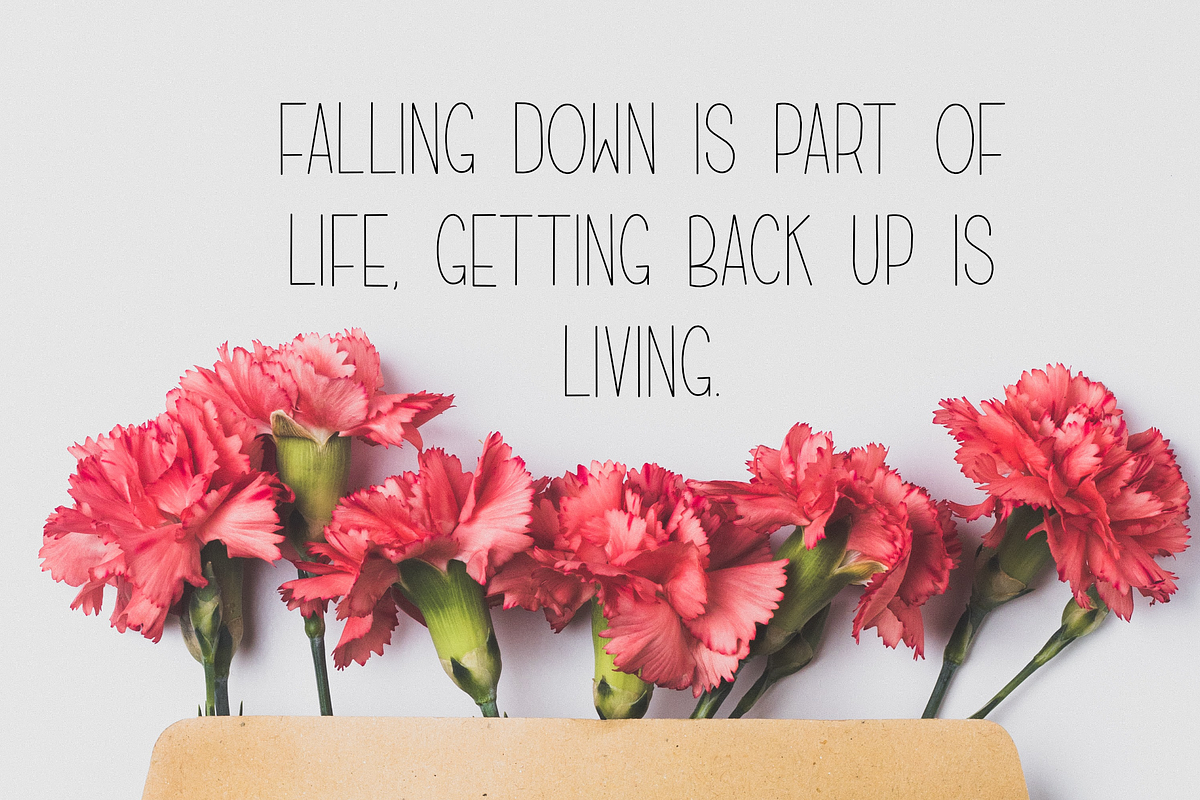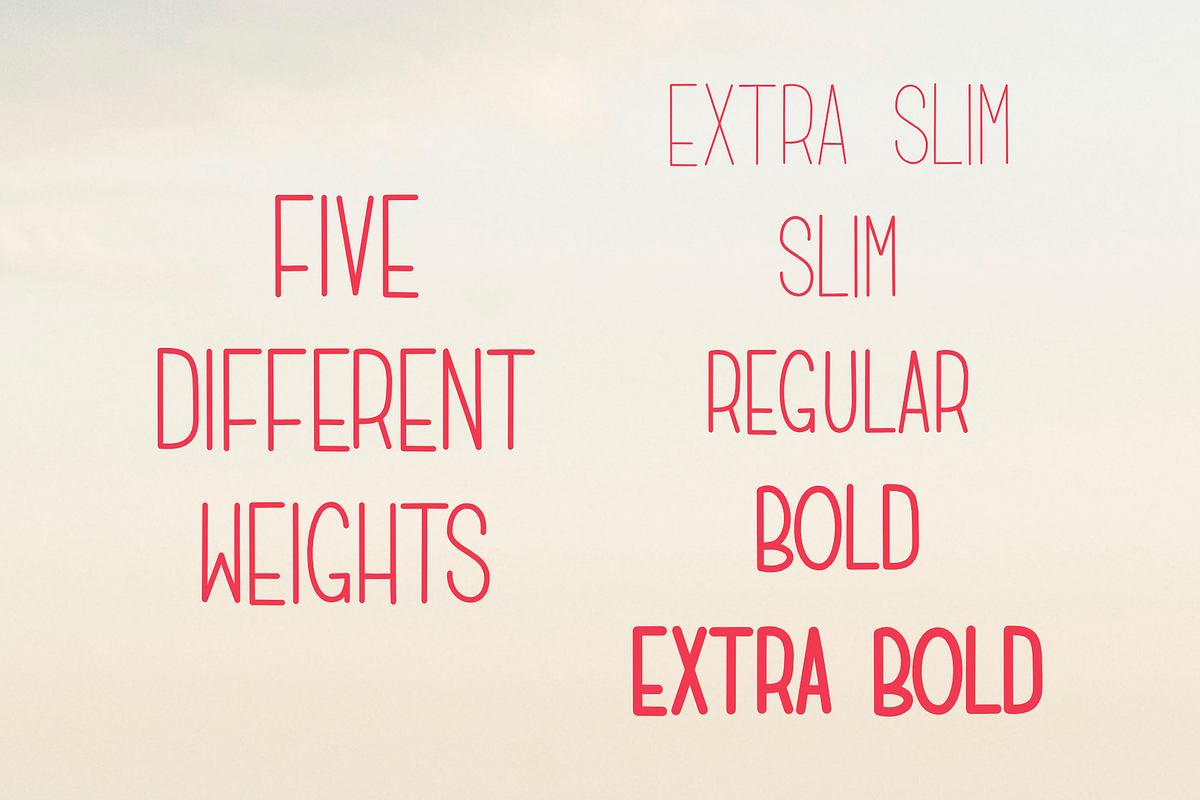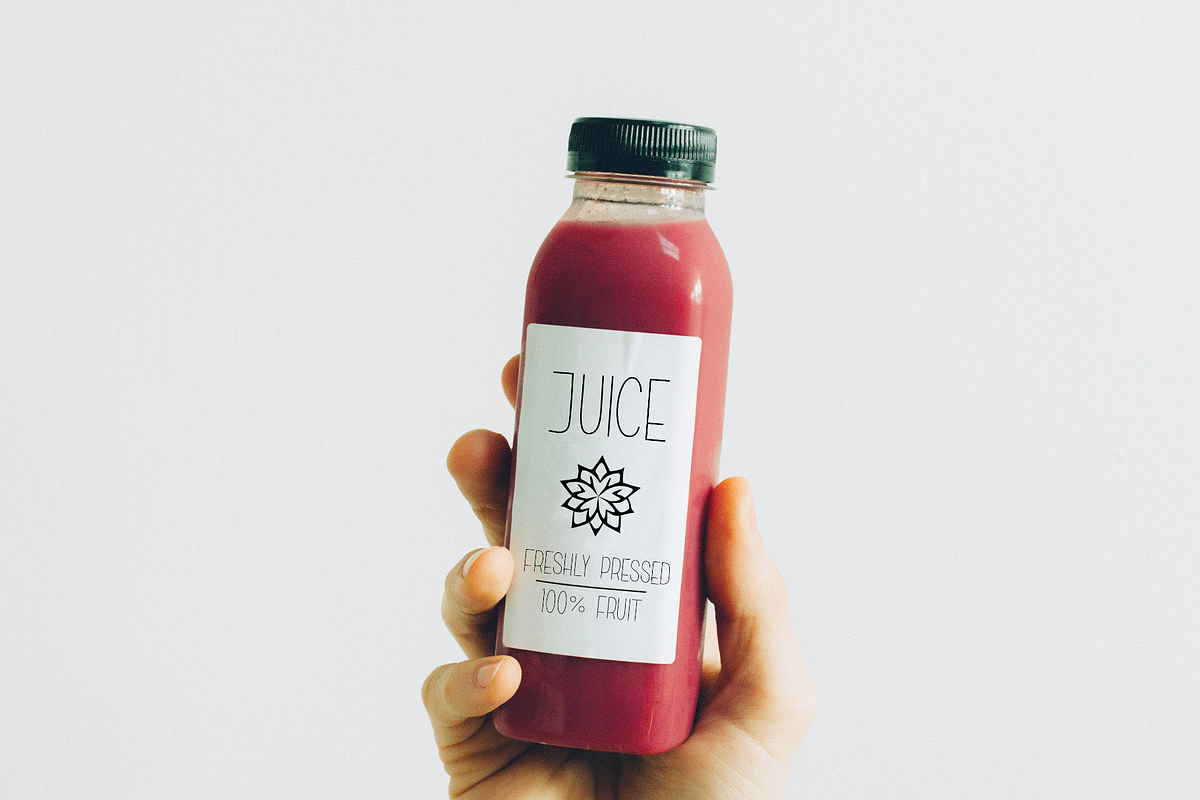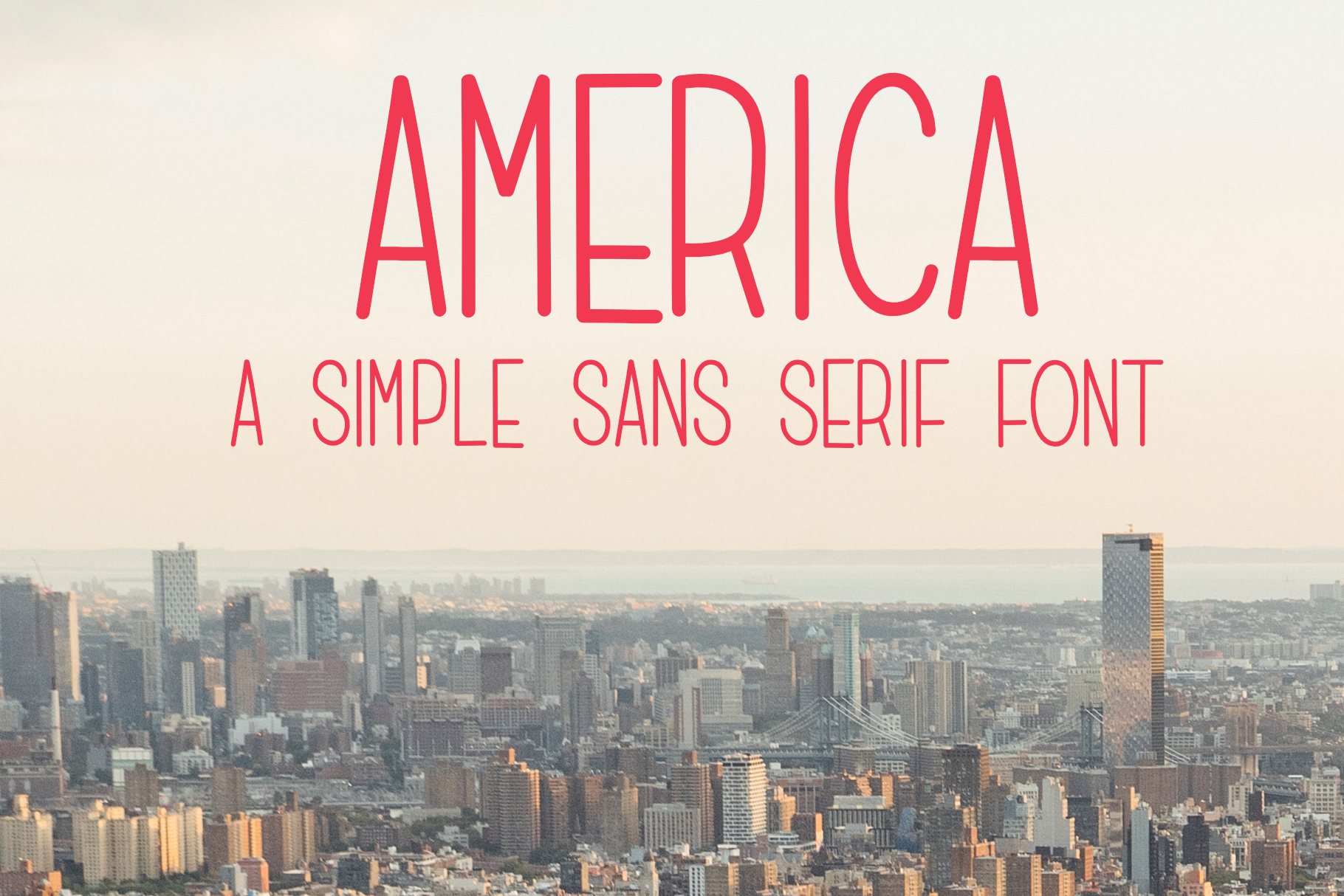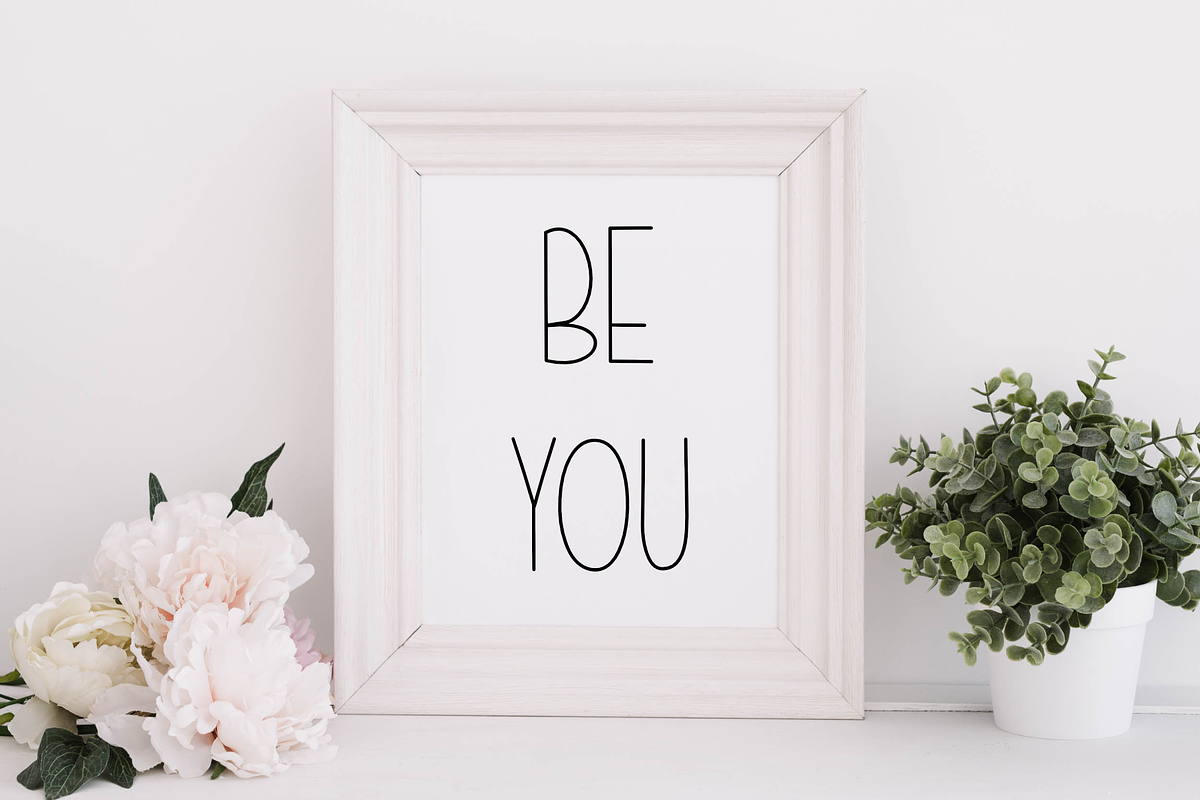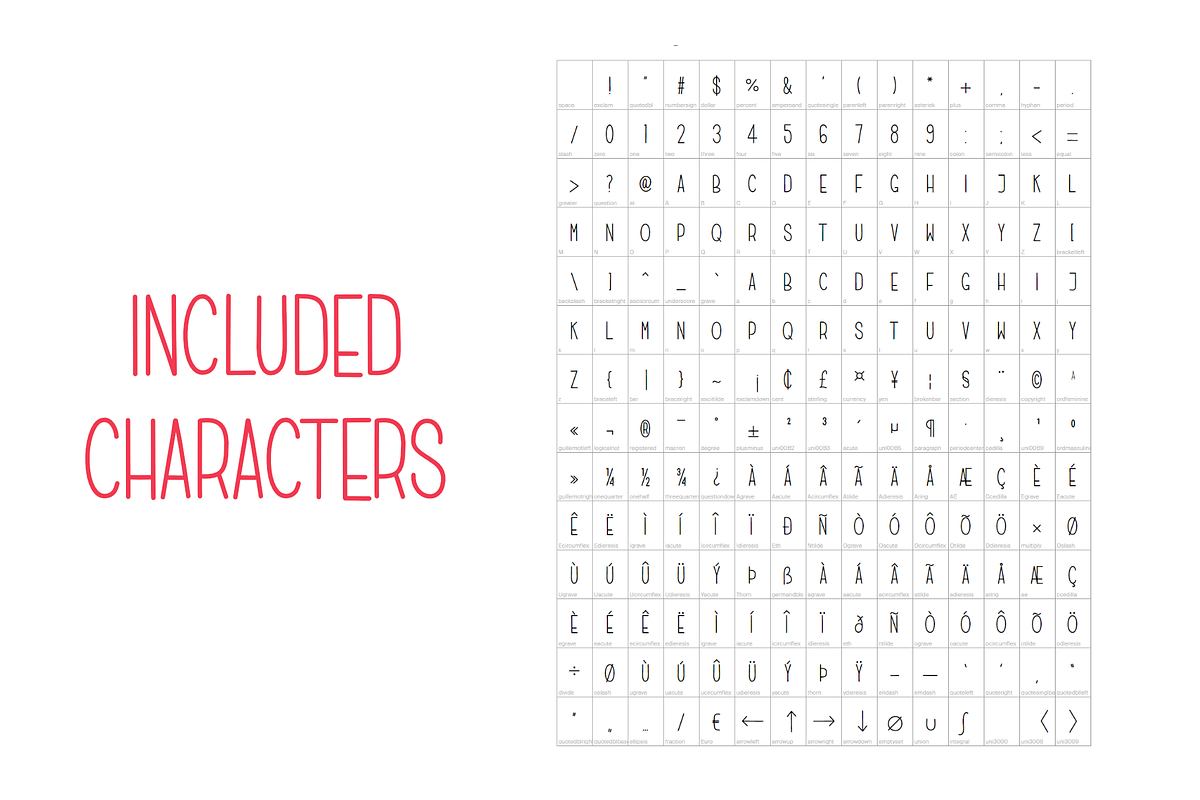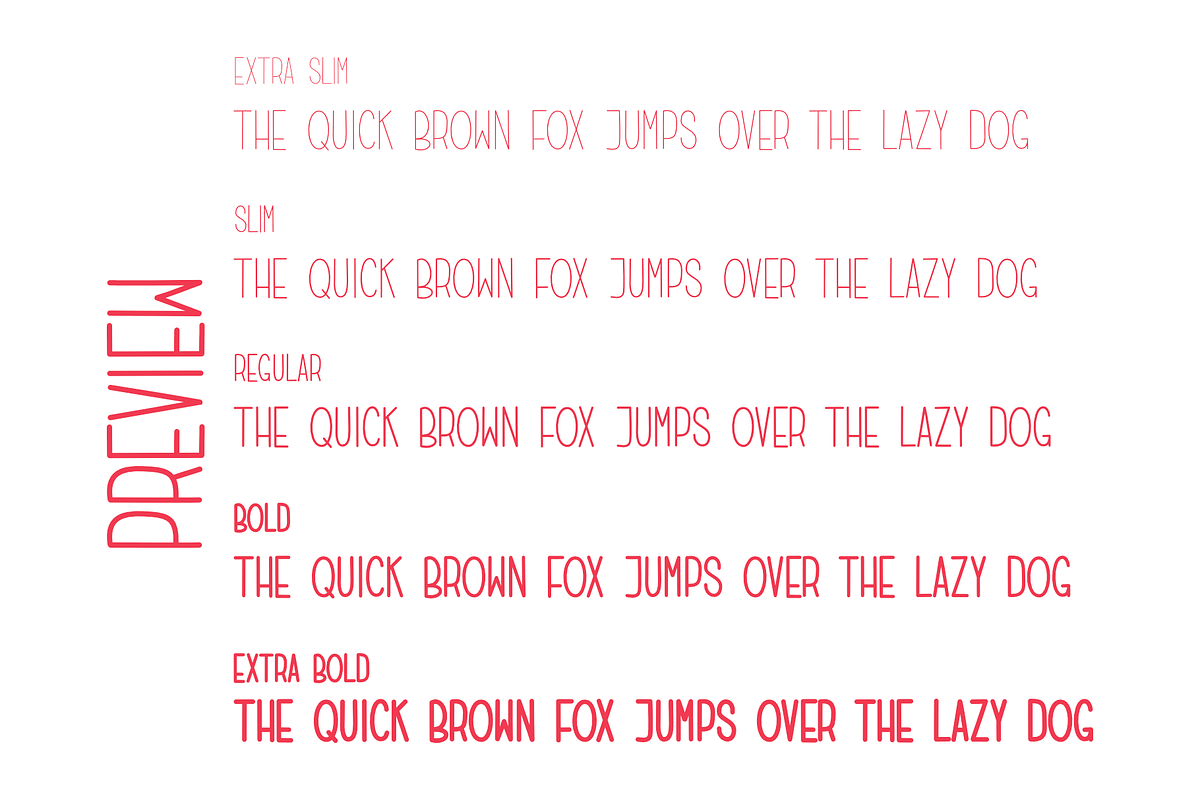
America | A sans serif font
America is a simple uppercase sans serif font. Designed with usability in mind, you can write in either uppercase or lowercase with the same beautiful result.